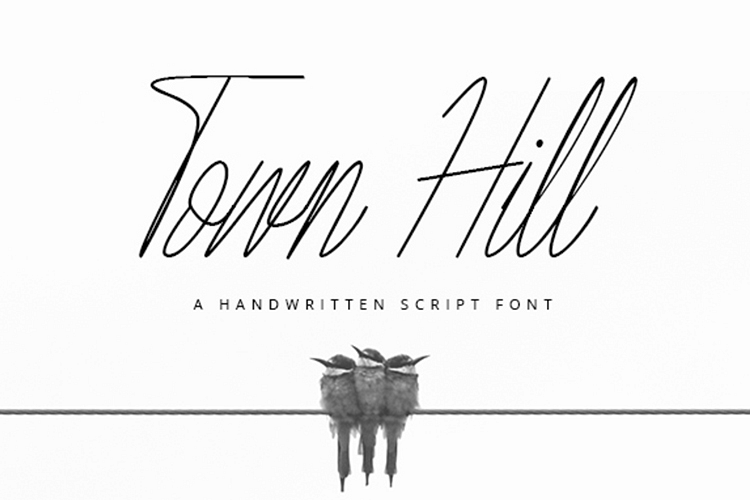
Town Hill
Town Hill is handwritten and script font. Town Hill is perfect for all your project and business such as wedding design, invitation, cover book design, flyer, poster, typography, lettering, etc.